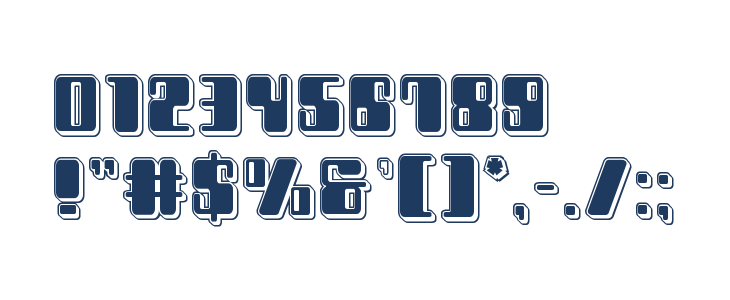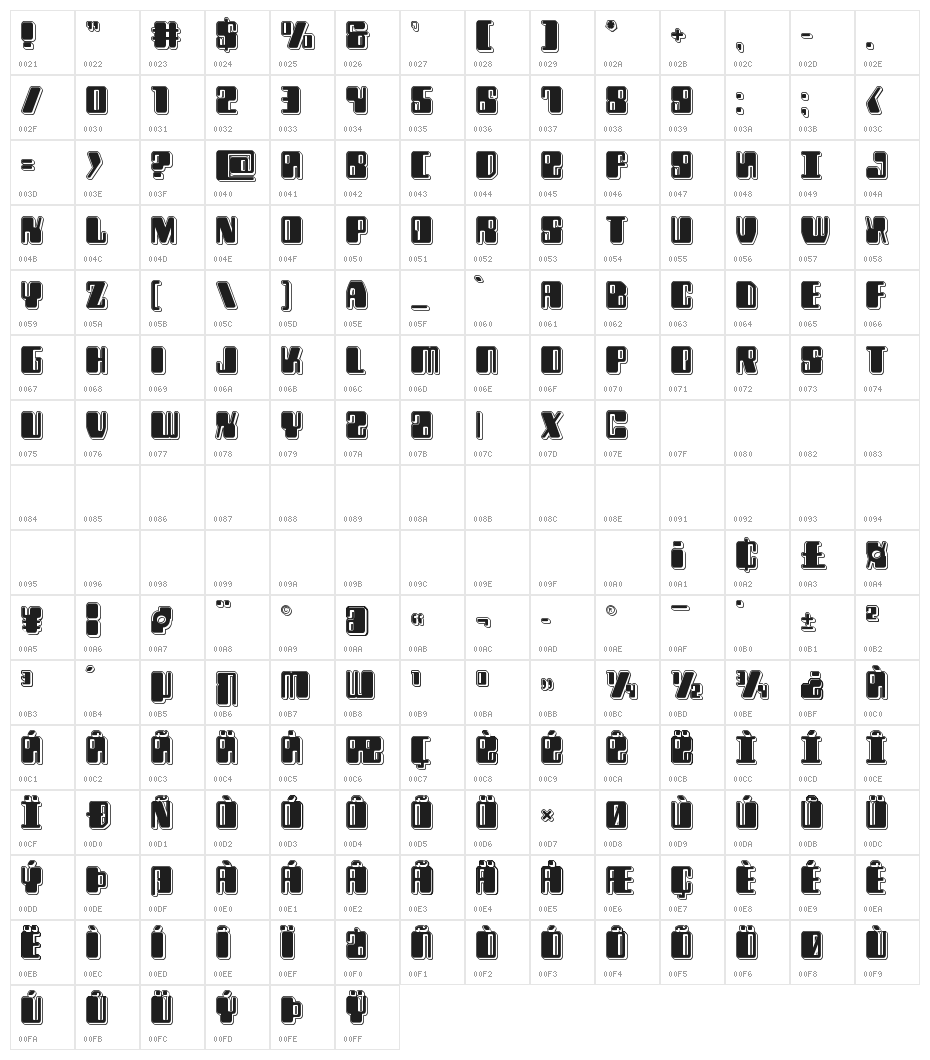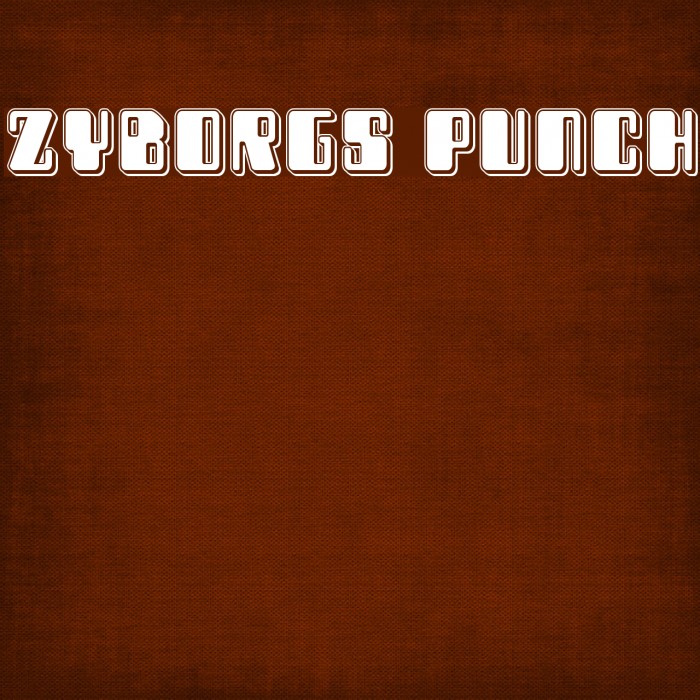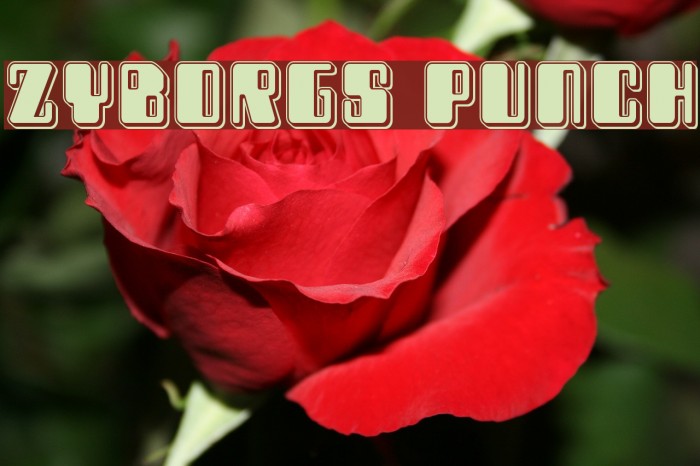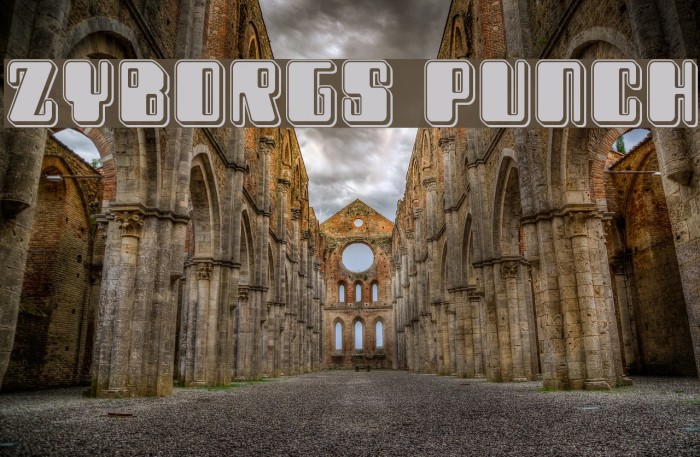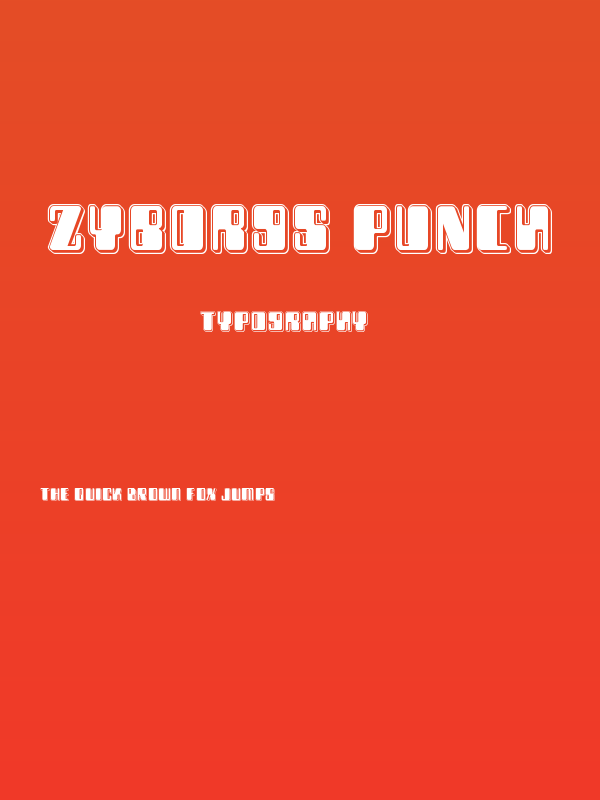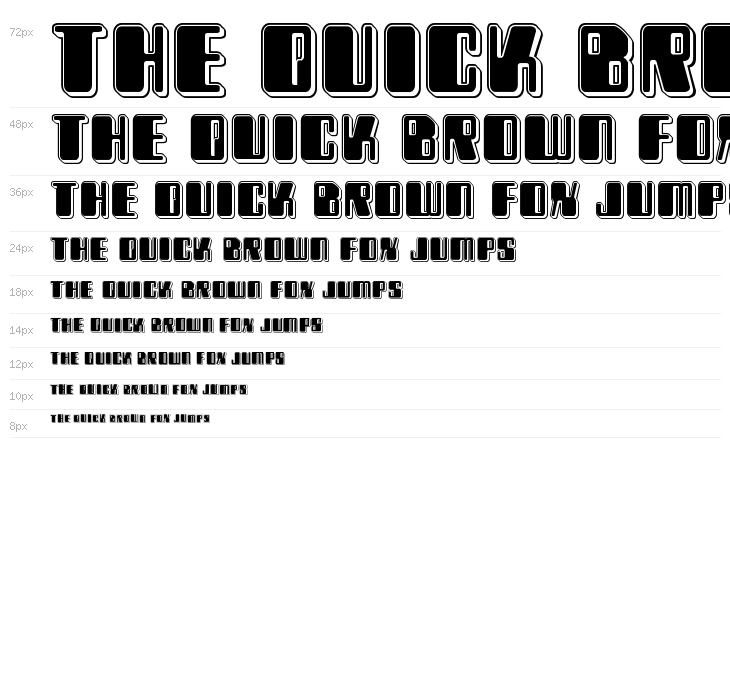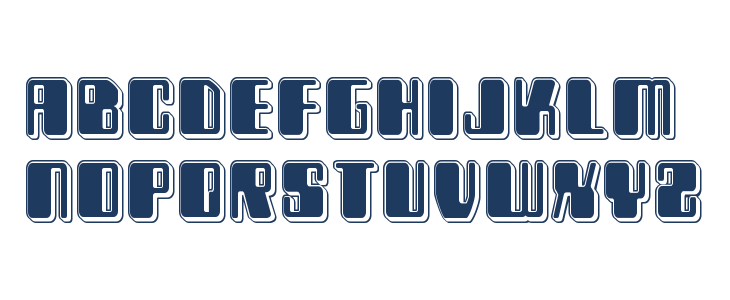
Zyborgs Punch Font
Zyborgs Punch Description
This font features a bold, futuristic design with a strong emphasis on geometric shapes. Each character is outlined with a thick border, creating a striking contrast between the filled and unfilled spaces. The letters and numbers have a blocky, angular appearance, giving them a modern and industrial feel. The special characters maintain this aesthetic, ensuring consistency across the entire typeface. The font's unique style makes it suitable for projects that require a bold and eye-catching display.